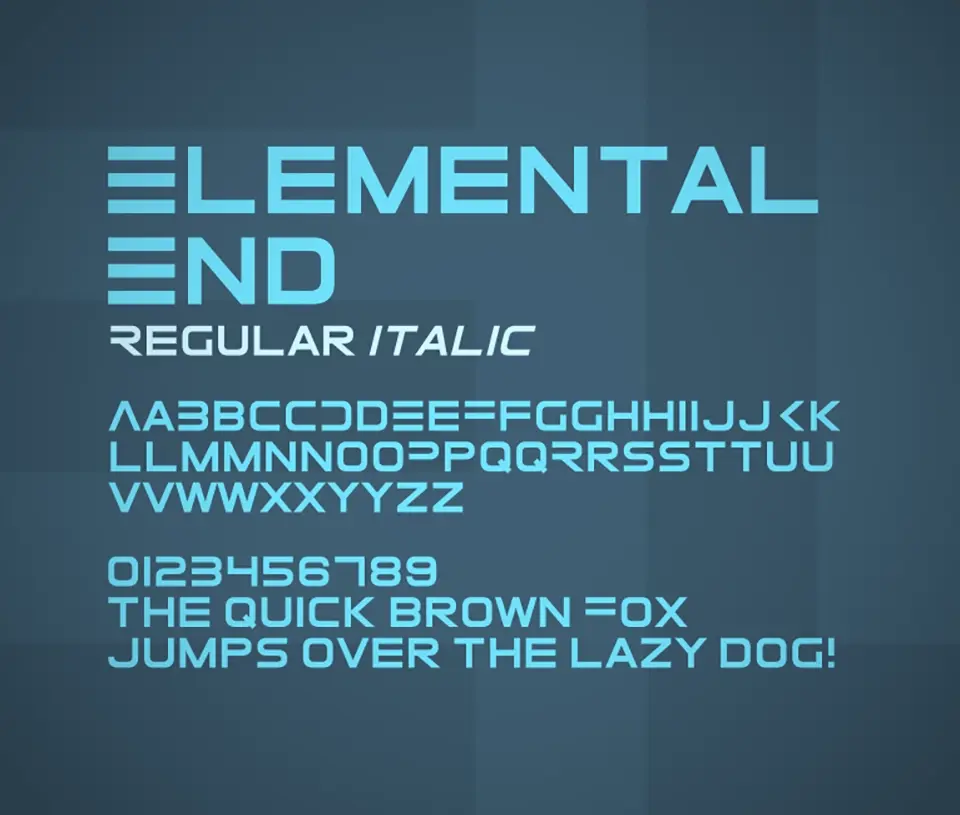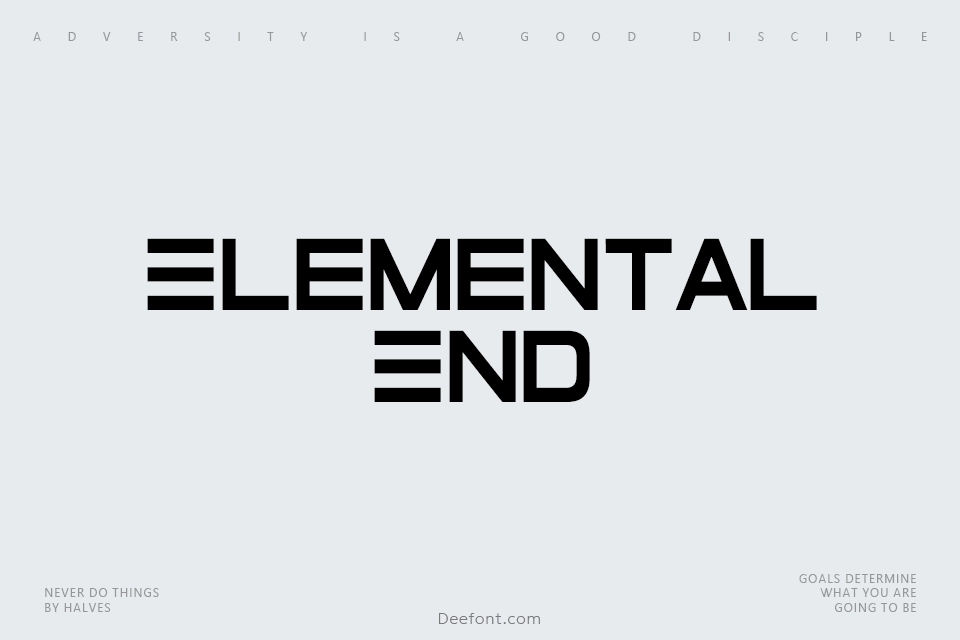
Elemental End Font
Elemental End is a futuristic sans serif display typeface featuring bold, angular shapes and clean geometric lines. Designed with uppercase letters as alternative forms and lowercase as more standard readable variants, it includes alternative glyphs for letters A, B, D, E, F, K, P, R and AE. The font comes in regular and italic styles, each with 300 characters, offering consistent stroke widths and modern aesthetic perfect for sci-fi themed projects, technology branding, digital interfaces and contemporary headlines.